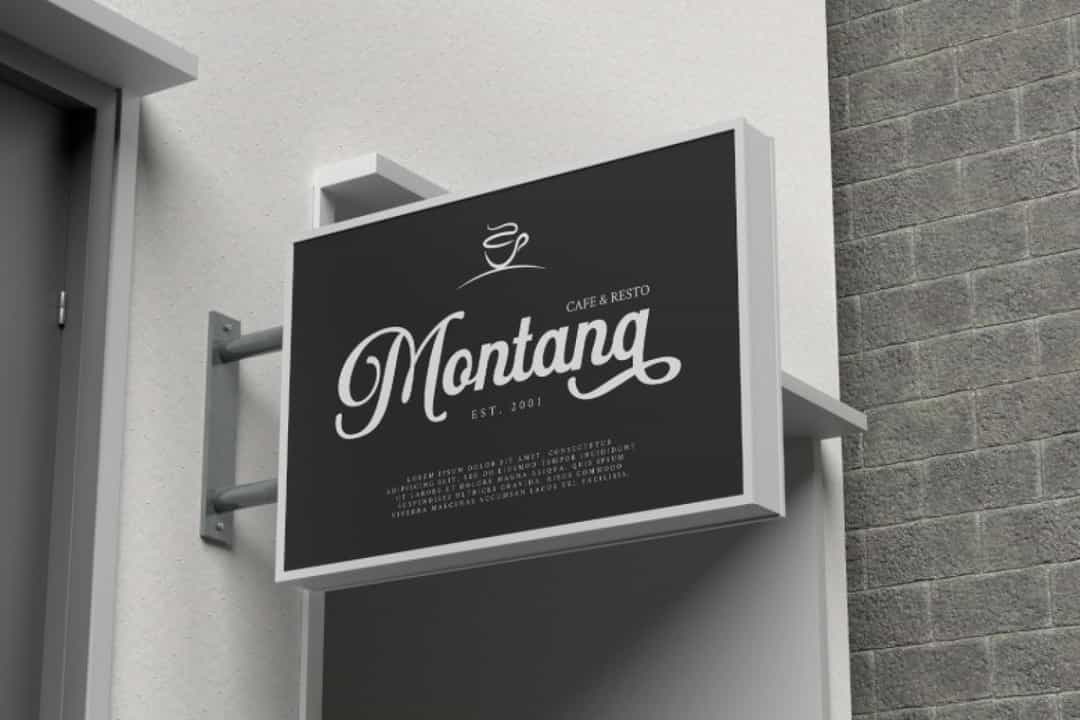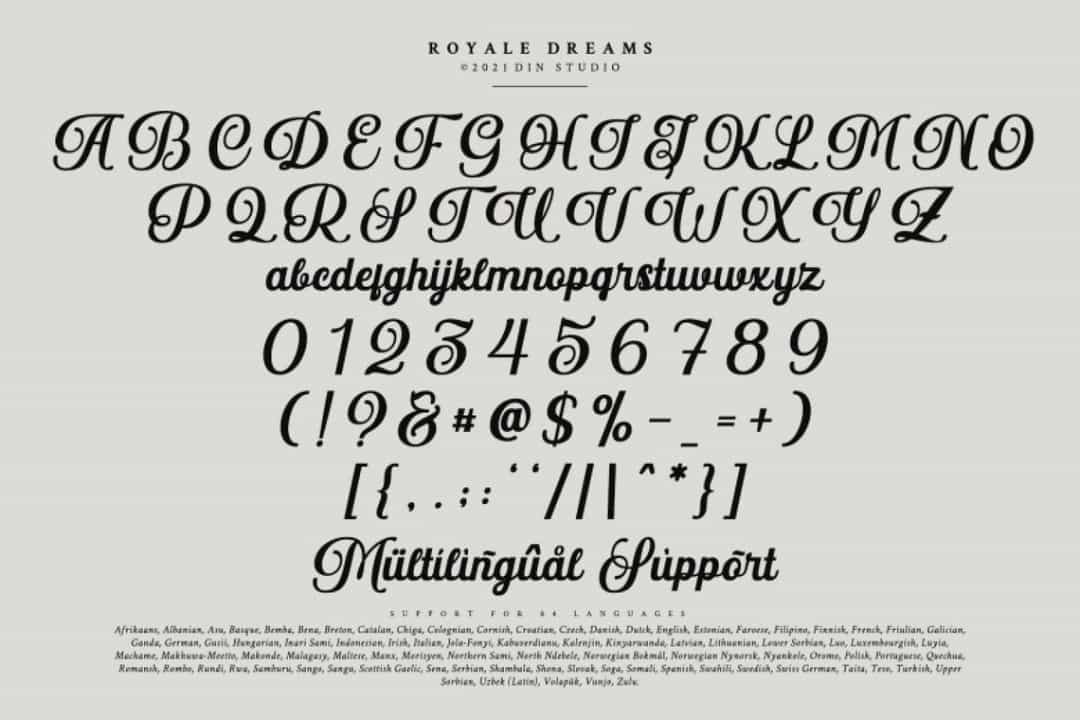
Royale Dreams Calligraphy Font is an elegant script typeface. Crafted by hand with style, the font’s purpose was to be captivating while remaining easy on the eyes and great at capturing headlines or large branding text. Not to mention it has that adorable “aww!” factor!